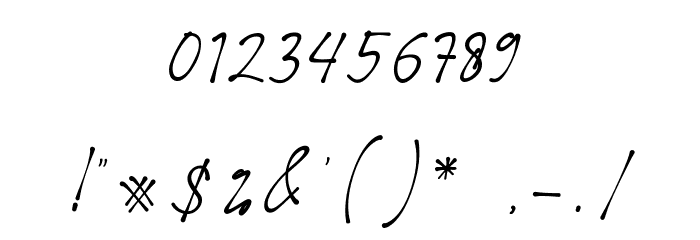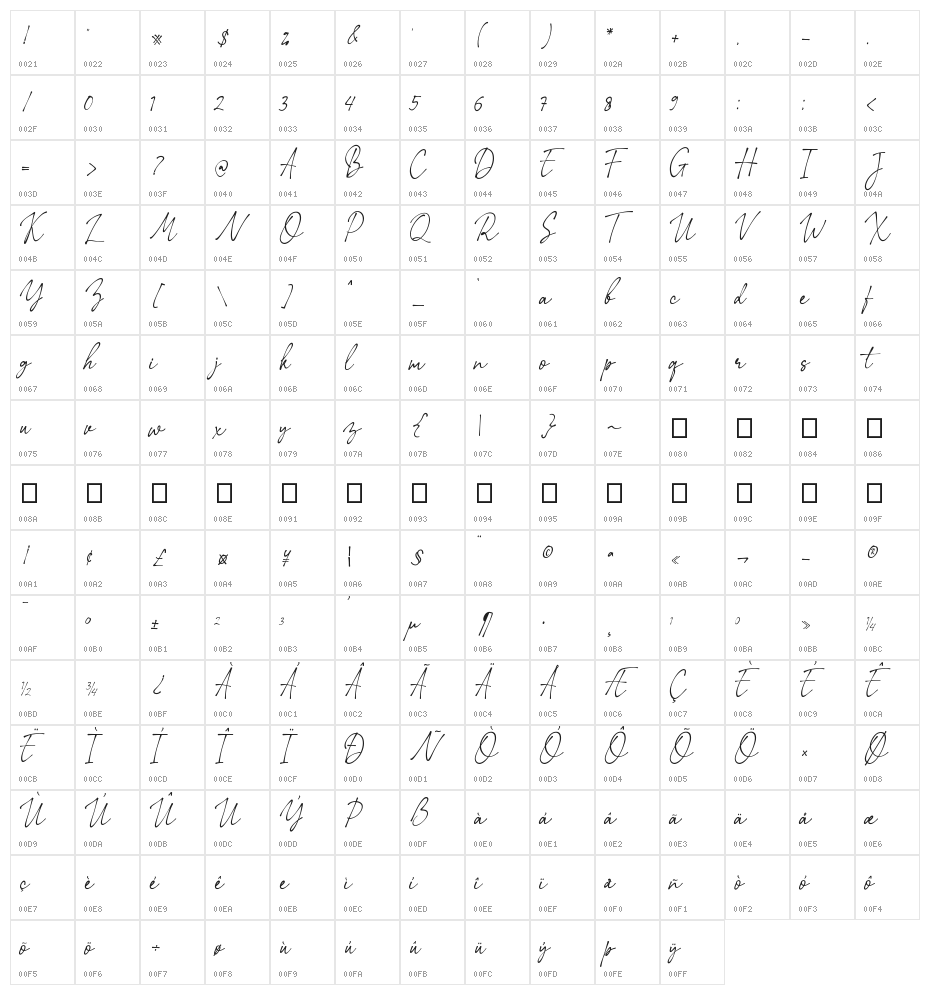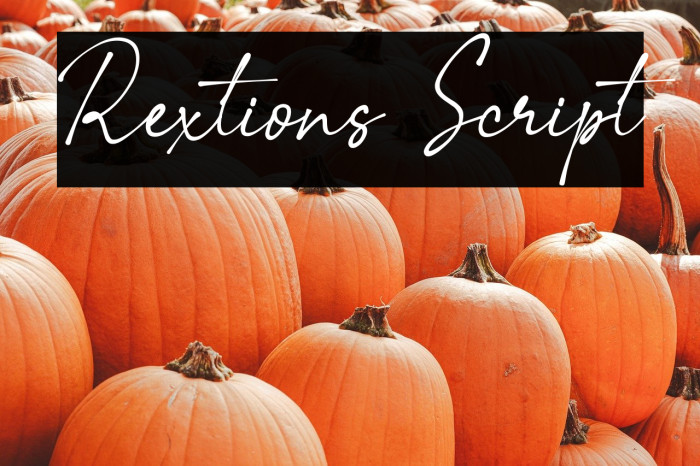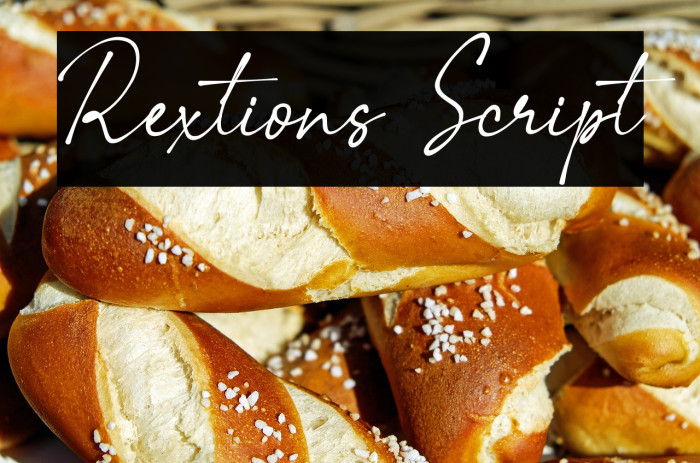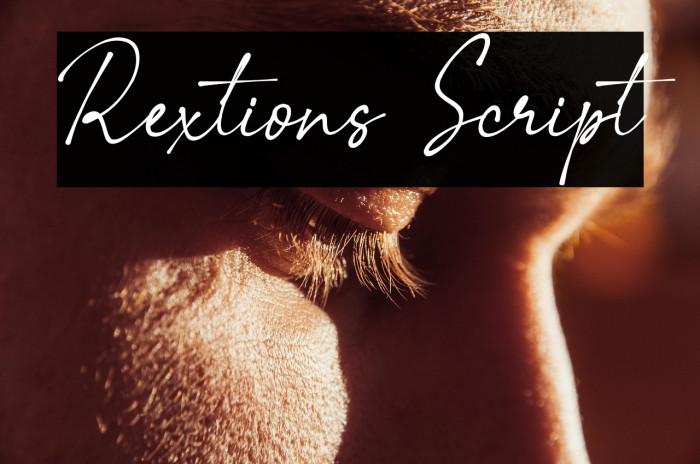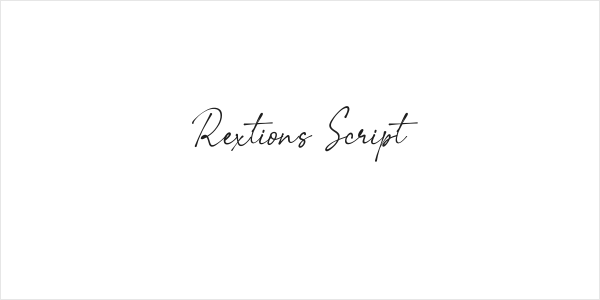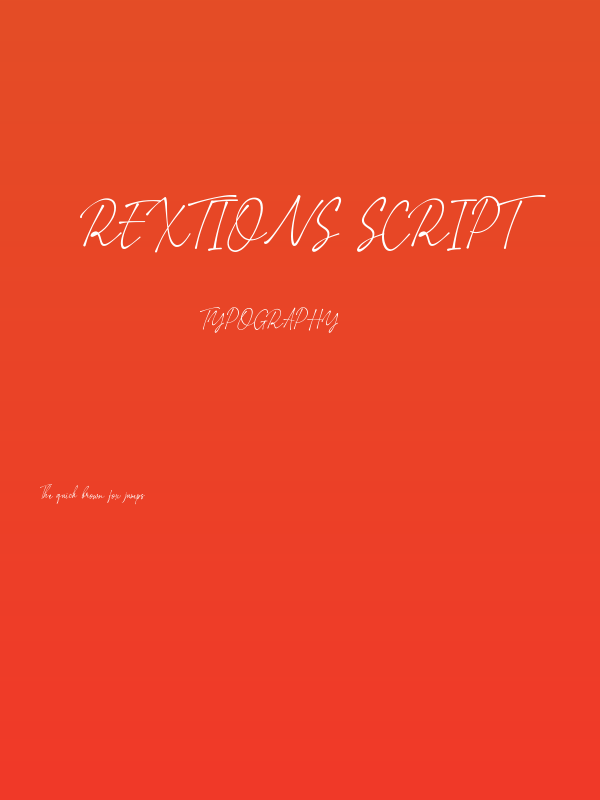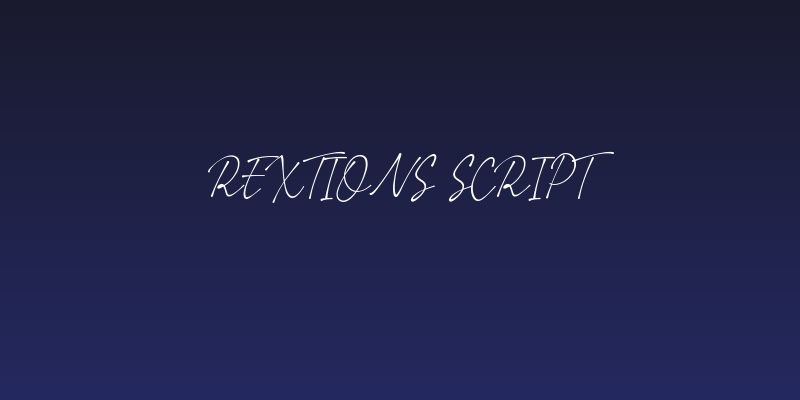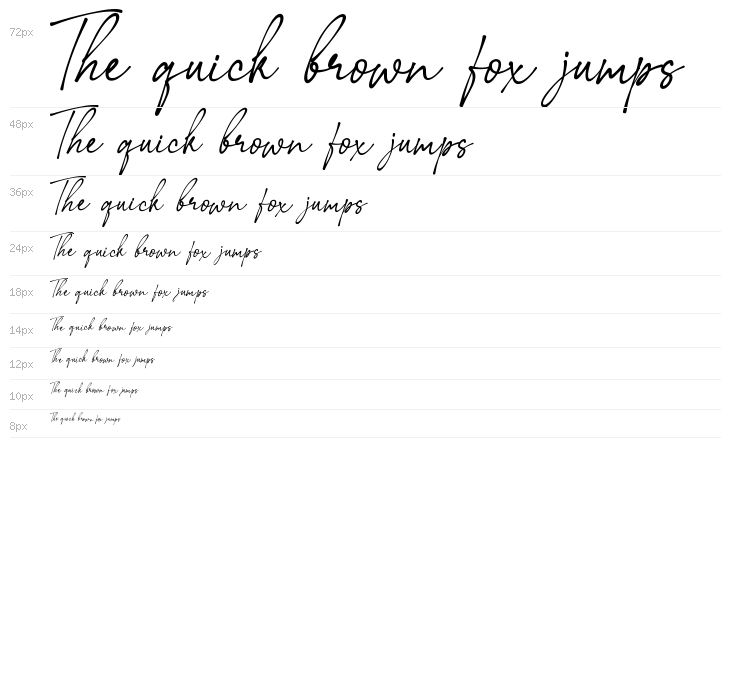
Rextions Script Font
Rextions Script Description
This elegant script font features a flowing, cursive style that mimics the fluidity of handwriting. The uppercase letters are tall and slender, with graceful loops and curves that add a touch of sophistication. The lowercase letters maintain a consistent slant, enhancing the handwritten feel. Numbers are clear and legible, while special characters blend seamlessly with the overall style. The font's delicate strokes and smooth connections make it ideal for projects that require a personal, artistic touch.
| Overall Style | Elegant and Artistic |
| Proposed Projects | Ideal for wedding invitations, greeting cards, personal branding, and elegant packaging designs. |